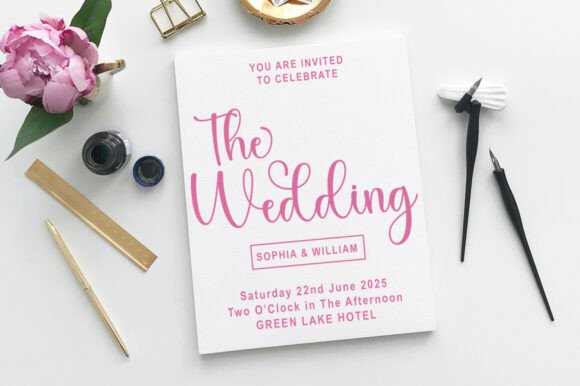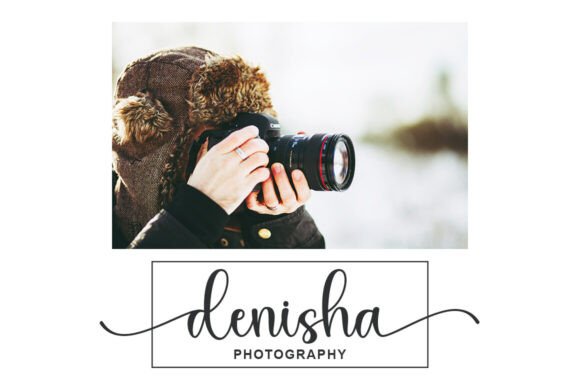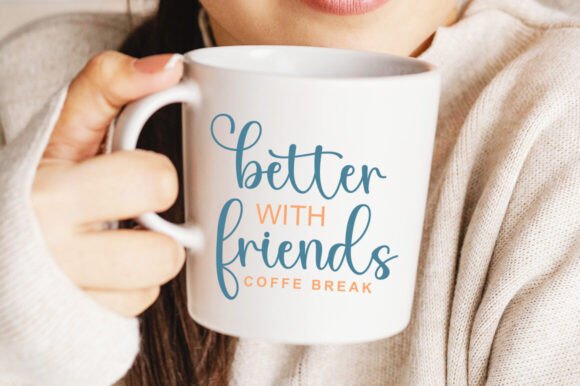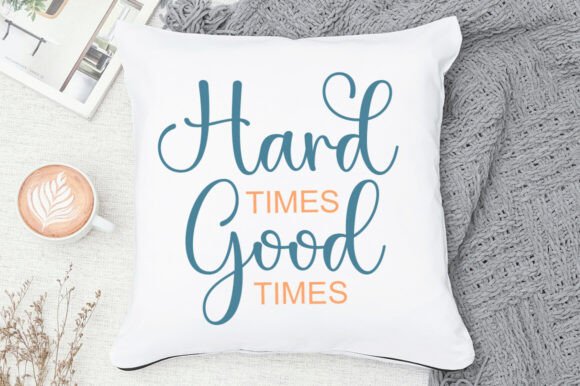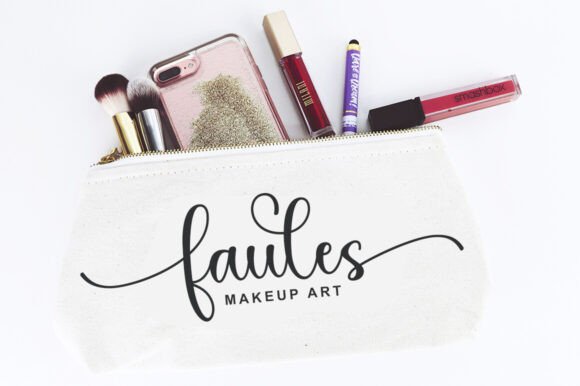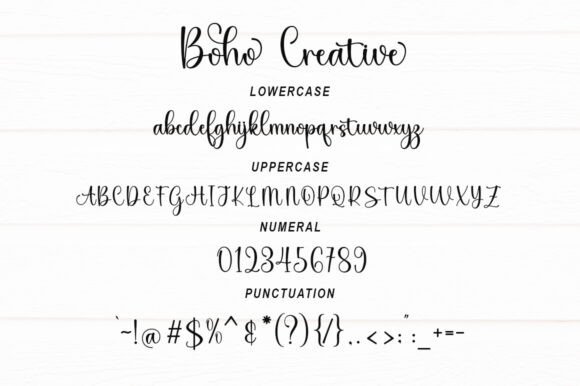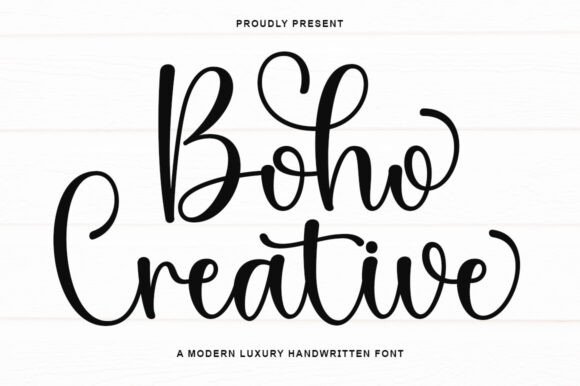
Introducing Boho Creative Font: The Ultimate Choice for Designers and Crafters
Are you a designer or crafter looking for a font that can add a touch of elegance and sophistication to your designs? Look no further than Boho Creative Font! This lovely and timeless handwritten font is the perfect choice for creating eye-catching logos, branding, and quotes that will leave a lasting impression on your audience.
The Unique Charm of Boho Creative Font
What sets Boho Creative Font apart from other fonts is its unique and beautiful touch. Every letter has been carefully crafted to have its own distinct character, making it a true standout in the world of typography. Whether you’re looking to create a logo, branding materials, or social media graphics, Boho Creative Font is the perfect choice.
Boho Creative Font is a versatile font that can be used for a wide range of design projects. Whether you’re a professional designer or a crafter looking to add a personal touch to your work, this font is sure to impress. Its elegant and sophisticated style makes it perfect for:
- Creating eye-catching logos and branding materials
- Designing social media graphics and quotes
- Adding a personal touch to craft projects, such as handmade cards and invitations
- Creating beautiful and unique typography for art and design projects
The Benefits of Using Boho Creative Font
So why choose Boho Creative Font for your design projects? Here are just a few benefits of using this amazing font:
- Unique and distinctive style: Boho Creative Font has a one-of-a-kind style that will set your designs apart from the crowd.
- Elegant and sophisticated: This font is perfect for creating designs that are elegant, sophisticated, and timeless.
- Versatile: Boho Creative Font can be used for a wide range of design projects, from logos and branding to social media graphics and craft projects.
- Easy to read: Despite its unique and artistic style, Boho Creative Font is easy to read and understand, making it perfect for use in a variety of contexts.
How to Use Boho Creative Font in Your Designs
Using Boho Creative Font in your designs is easy! Here are a few tips to get you started:
- Experiment with different colors and textures: Boho Creative Font looks amazing in a variety of colors and textures, so don’t be afraid to experiment and find the perfect combination for your design.
- Use it for headings and titles: Boho Creative Font is perfect for use in headings and titles, where its unique and elegant style can really shine.
- Pair it with other fonts: Boho Creative Font can be paired with a variety of other fonts to create a unique and interesting look.